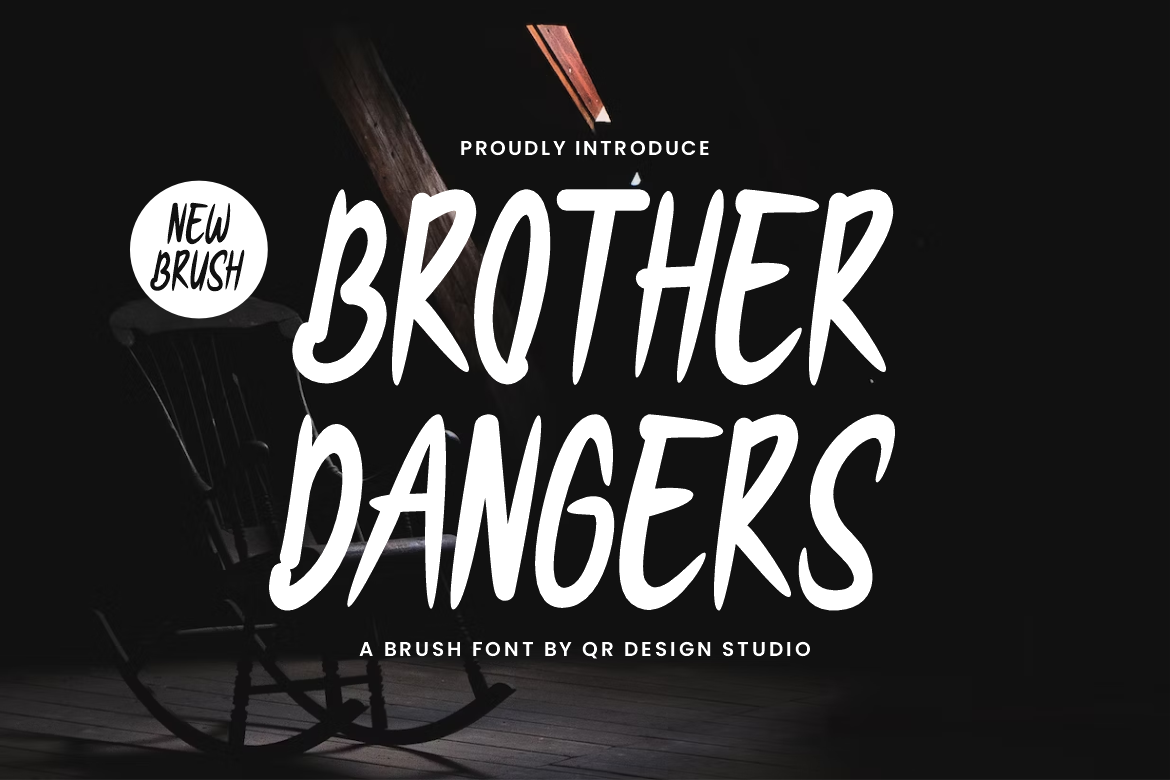
Brother Dangers Font
Brother Dangers Font is a Hand Drawn and authentic display font. The font is suitable for any branding project like poster, logo, sport, and many more. Outstanding in a wide range of contexts.